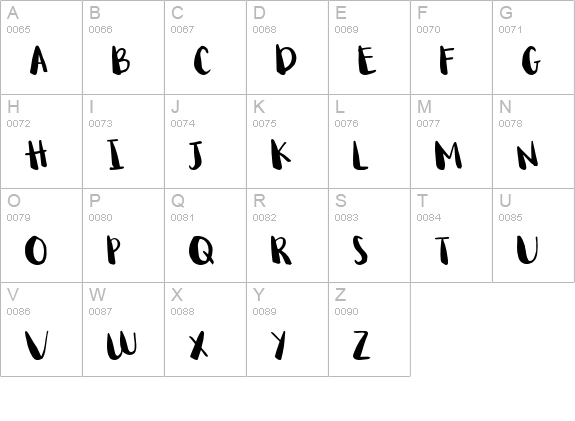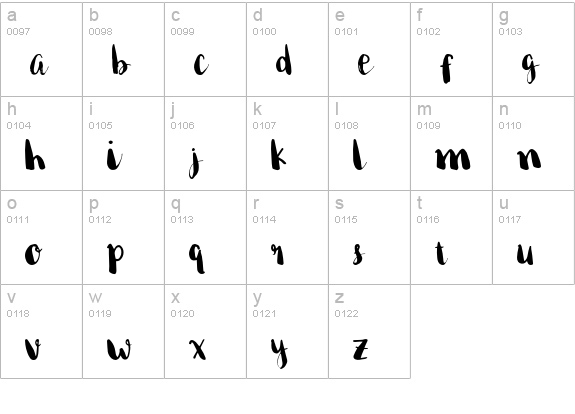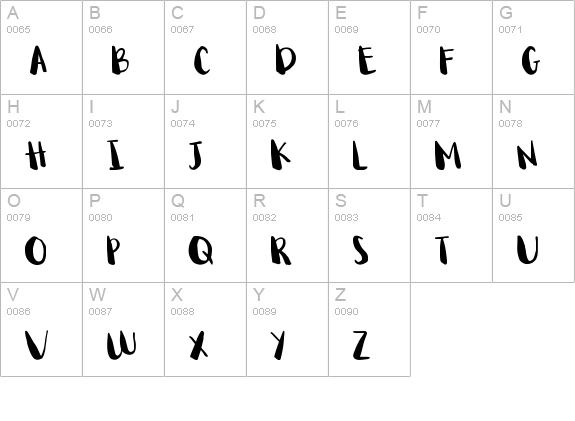
Begin Again font is a stunning display typeface that exudes elegance and sophistication. Its clean lines and modern aesthetic make it perfect for a wide range of design projects, from branding to editorial design and everything in between. The font features a unique blend of sharp angles and smooth curves, creating a harmonious balance that is both eye-catching and easy to read. What sets Begin Again font apart is not just its design prowess, but also the fact that it is available for free download at FontsMarket.com. This means that you can add this versatile typeface to your collection without any cost, making it a valuable asset for both professional designers and hobbyists alike. So why wait? Begin Again font is just a click away, waiting to elevate your next project to new heights of creativity and style.